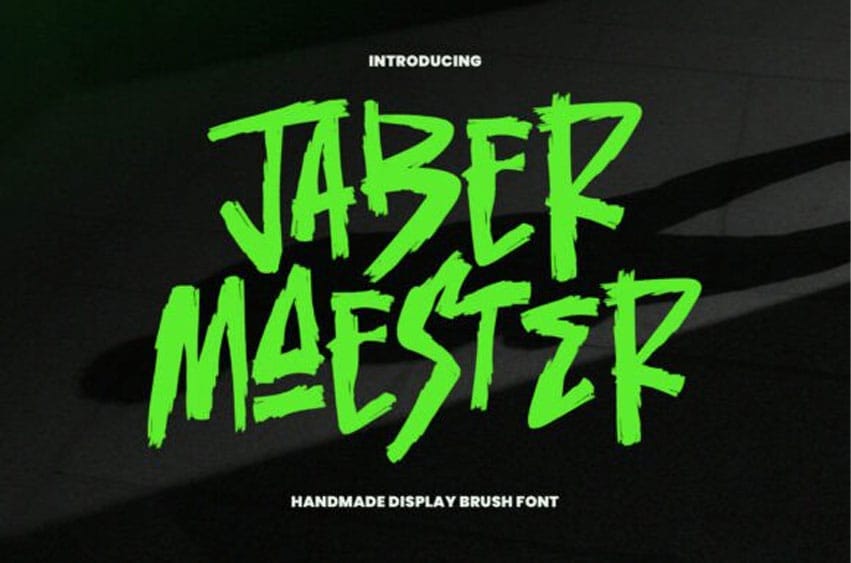
Jaber Maester Font Unleash a torrent of raw, aggressive energy with Jaber Maester, a high-impact Handmade Display Brush Font designed to dominate the visual space.
This typeface perfectly captures the visceral feel of dry-brush painting and hastily scrawled graffiti, making it the ultimate tool for conveying chaos, action, and unpolished intensity.
The defining characteristic of Jaber Maester is its jagged, uneven outlines and intentional, visible brush strokes, giving it a textural, organic roughness.
The letterforms are bold, uppercase, and slightly condensed, creating a powerful, attention-grabbing block of text, ideal for headlines that need to look handmade and fierce. It is the perfect choice for eSports team logos, horror movie posters, loud event flyers, grunge apparel, and any branding that requires a dark, edgy, and unapologetic attitude.
This font’s uniqueness lies in its authentic emulation of a quick, high-velocity brush application, ensuring your message is delivered with immediate, high-octane impact.